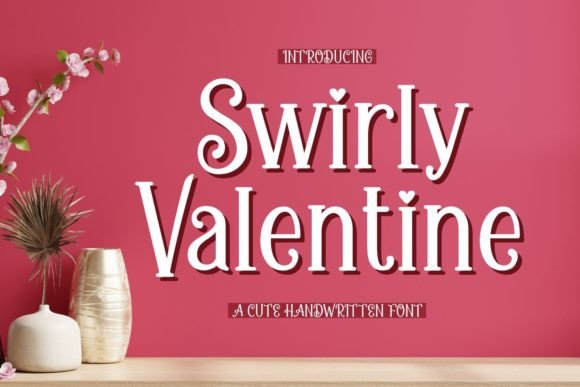
Introducing Swirly Valentine Font - the perfect way to add a touch of love to your projects! Created by Wakhamm (7NTypes), this adorable display font is all you need for your Valentine's Day creations.
With its unique swirly design, Swirly Valentine Font is perfect for a range of projects. Use it to create customized greeting cards for your loved ones or add some love to your digital designs with this eye-catching font. This font is also ideal for gift labels, wall decorations, stickers, and much more.
Swirly Valentine Font is designed with the latest technology to ensure that it is easy to read, even in smaller sizes. Its smooth curves and playful design make it a perfect fit for all your Valentine's Day projects.
This font is not just for Valentine's Day, though. Its versatility means that it can be used for a range of projects throughout the year. From wedding invitations to baby announcements, Swirly Valentine Font is the perfect way to add a touch of elegance and romance to your creations.
The font family, Display, is perfect for larger headlines and designs where you want to make a statement. The letters are bold and impactful, ensuring that your message is conveyed loud and clear.
In conclusion, Swirly Valentine Font is the perfect addition to any designer's toolkit. Its cute and adorable design, combined with its versatility and ease of use, makes it an excellent choice for all your creative projects. Get your hands on Swirly Valentine Font today and start creating stunning designs that will capture the heart of your audience.